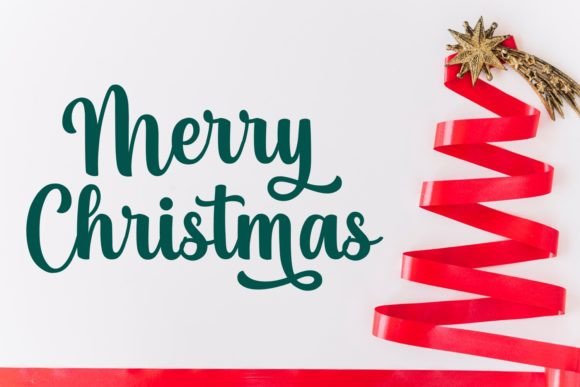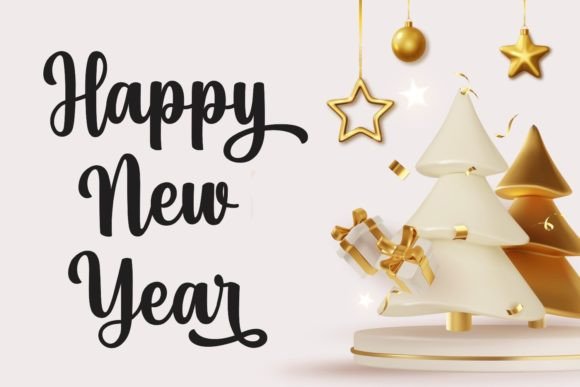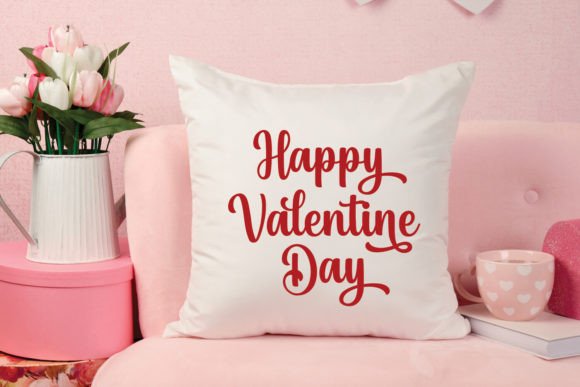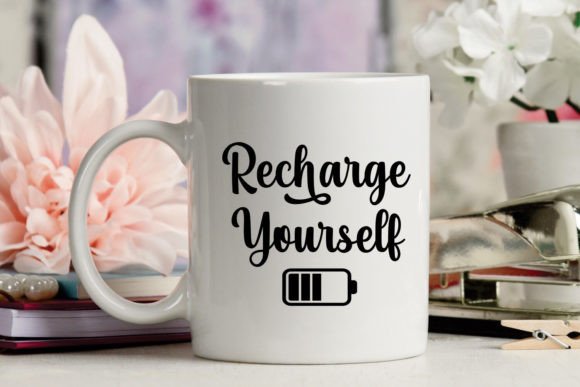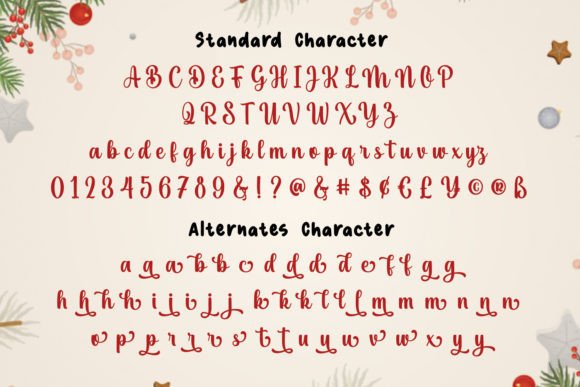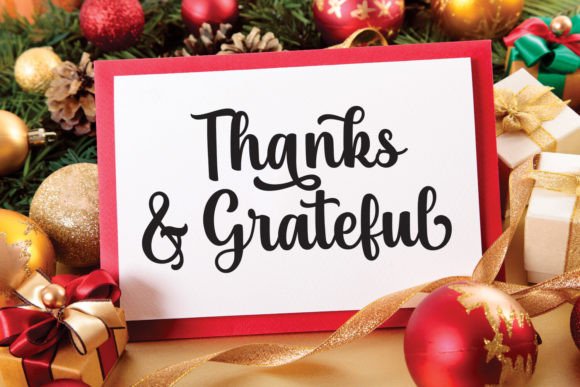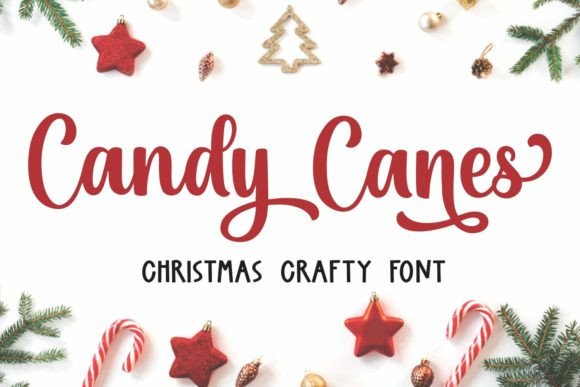
Introducing the Candy Canes Font: A Whimsical Holiday Typeface
The holiday season is upon us, and with it comes the joy of creating festive designs that capture the magic of the season. For designers and crafters looking to add a touch of whimsy and playfulness to their projects, we are thrilled to introduce the Candy Canes Font. This delightful typeface is a festive journey through a winter wonderland, where each character is a playful reflection of the joy and merriment that fills the air during the holiday season.
A Festive Font with a Playful Twist
The Candy Canes font is a delightful blend of cheer and creativity, reminiscent of a child’s gleeful laughter on a snowy day. Its letters are crafted with a sense of spontaneity, as if they were drawn by hand with candy canes dipped in icing sugar. The strokes and curls mimic the playful path of snowflakes as they dance in the brisk winter breeze. This font is perfect for designers and crafters who want to add a touch of holiday magic to their projects.
Perfect for Holiday Designs
Whether it’s adorning greeting cards, embellishing festive banners, or enhancing the packaging of holiday treats, the Candy Canes font infuses a touch of playfulness into any project it graces. It adds a dash of childlike wonder to invitations, a sprinkle of whimsy to newsletters, and a sprinkle of magic to any design endeavor. With the Candy Canes font, you can create designs that are sure to bring a smile to the faces of your audience.
Design Ideas with Candy Canes Font
The Candy Canes font is a versatile typeface that can be used in a variety of design projects. Here are some ideas to get you started:
• Holiday Greeting Cards: Create personalized greeting cards with the Candy Canes font and add a touch of festive cheer to your holiday messages.
• Festive Banners: Design eye-catching banners with the Candy Canes font and use them to decorate your website, social media, or physical store.
• Packaging Design: Add a touch of whimsy to your holiday treat packaging with the Candy Canes font and make your products stand out.
• Invitations: Create festive invitations with the Candy Canes font and set the tone for a fun and playful holiday party.
Tips for Using the Candy Canes Font
To get the most out of the Candy Canes font, here are some tips to keep in mind:
• Experiment with Colors: Try pairing the Candy Canes font with bright and bold colors to create a festive and playful look.
• Mix and Match: Combine the Candy Canes font with other fonts and design elements to create a unique and eye-catching design.
• Keep it Simple: Don’t be afraid to keep your design simple and let the Candy Canes font be the star of the show.
The Candy Canes font is a delightful and whimsical typeface that captures the essence of holiday joy and merriment. With its playful strokes and curls, this font is perfect for designers and crafters looking to add a touch of festive cheer to their projects. Whether you’re creating holiday greeting cards, festive banners, or packaging design, the Candy Canes font is sure to bring a smile to the faces of your audience. So why wait? Download the Candy Canes font today and start creating your own festive designs!